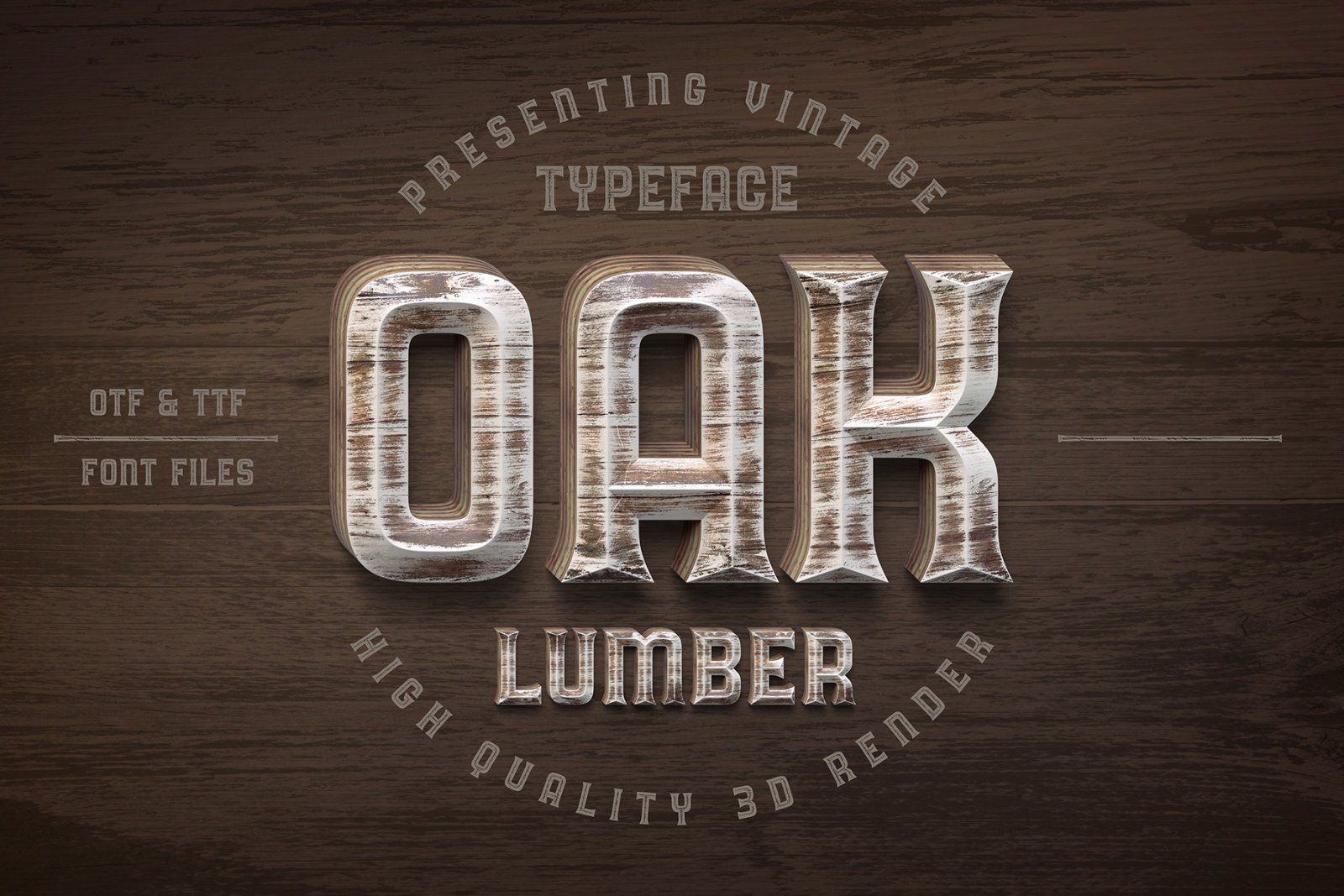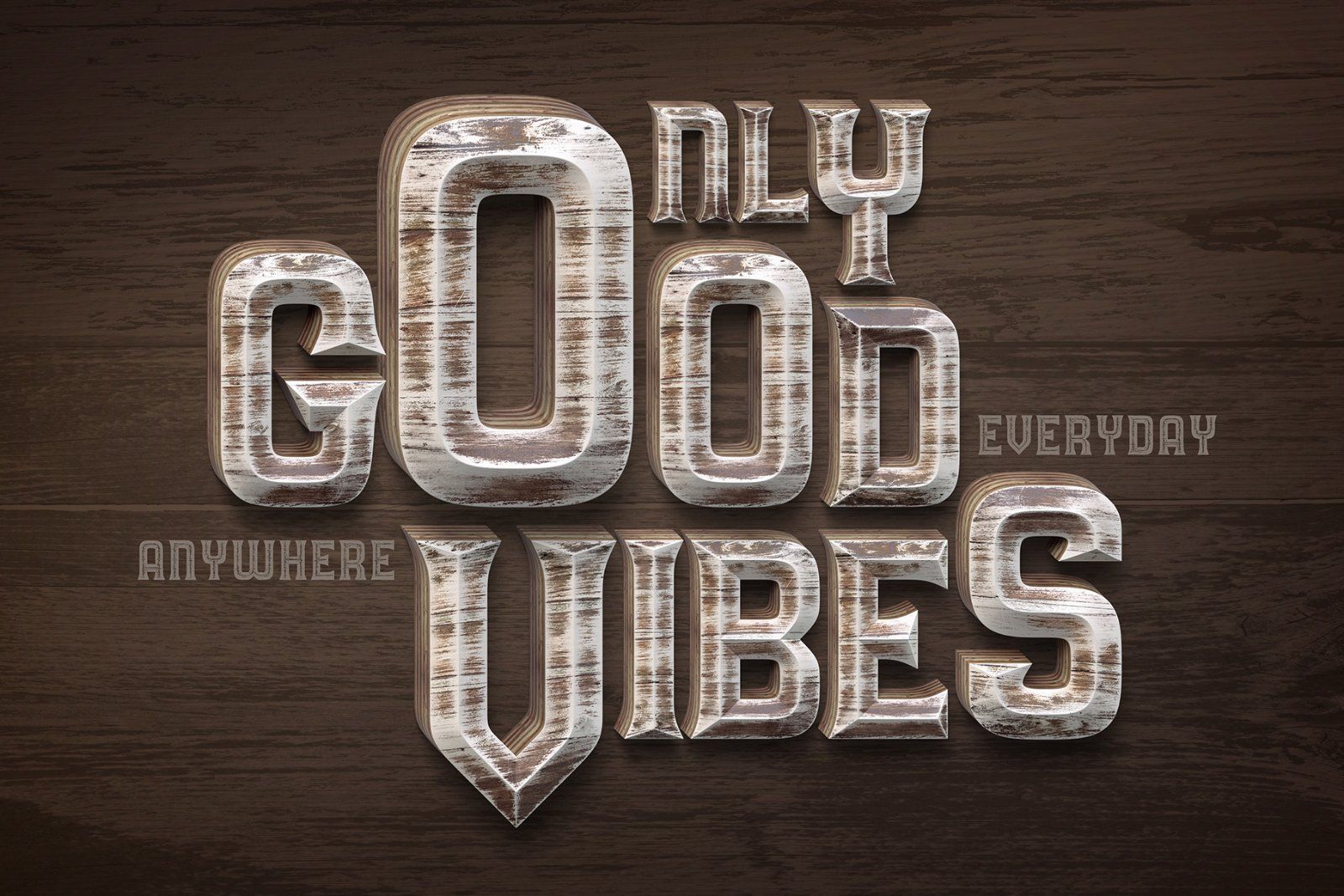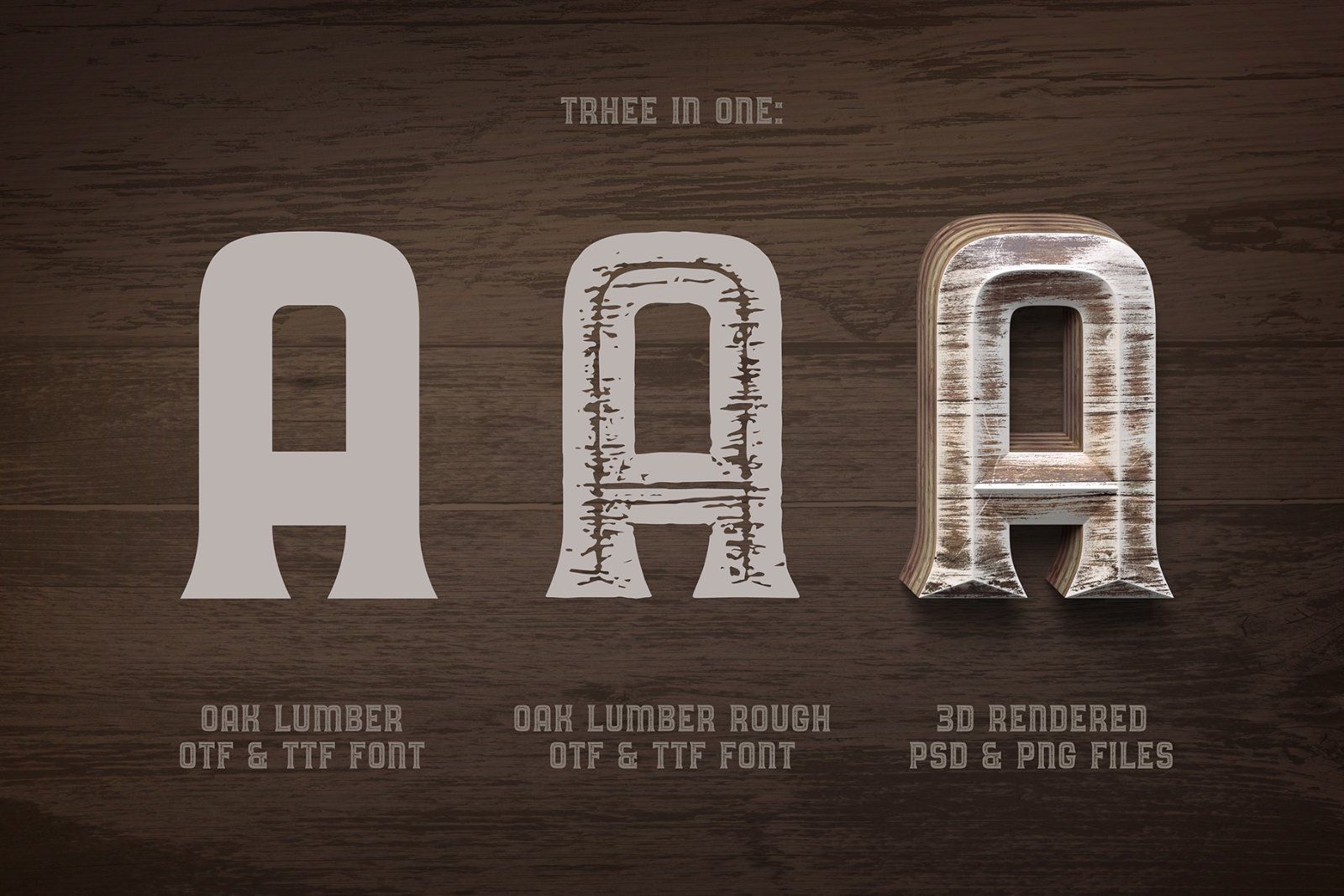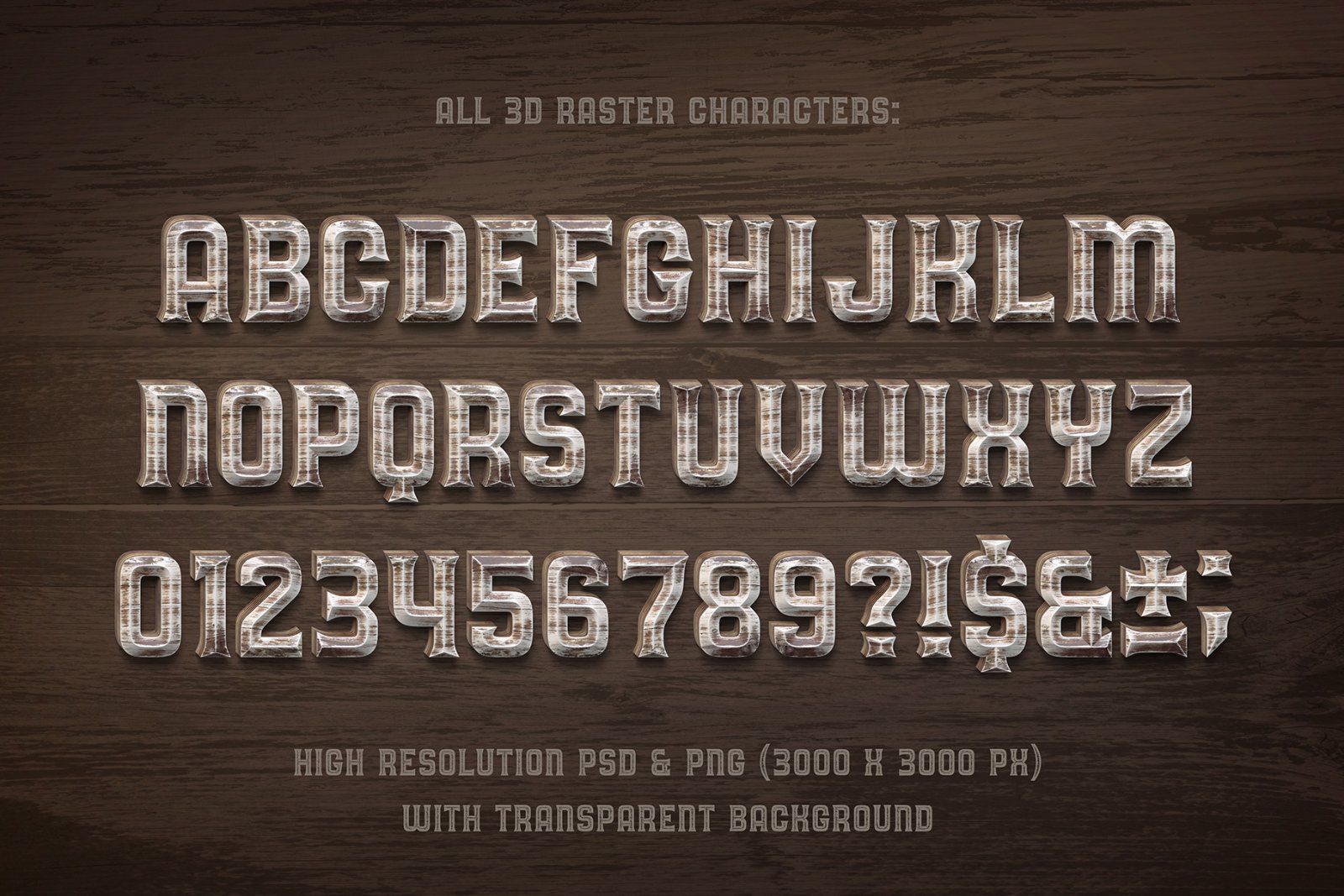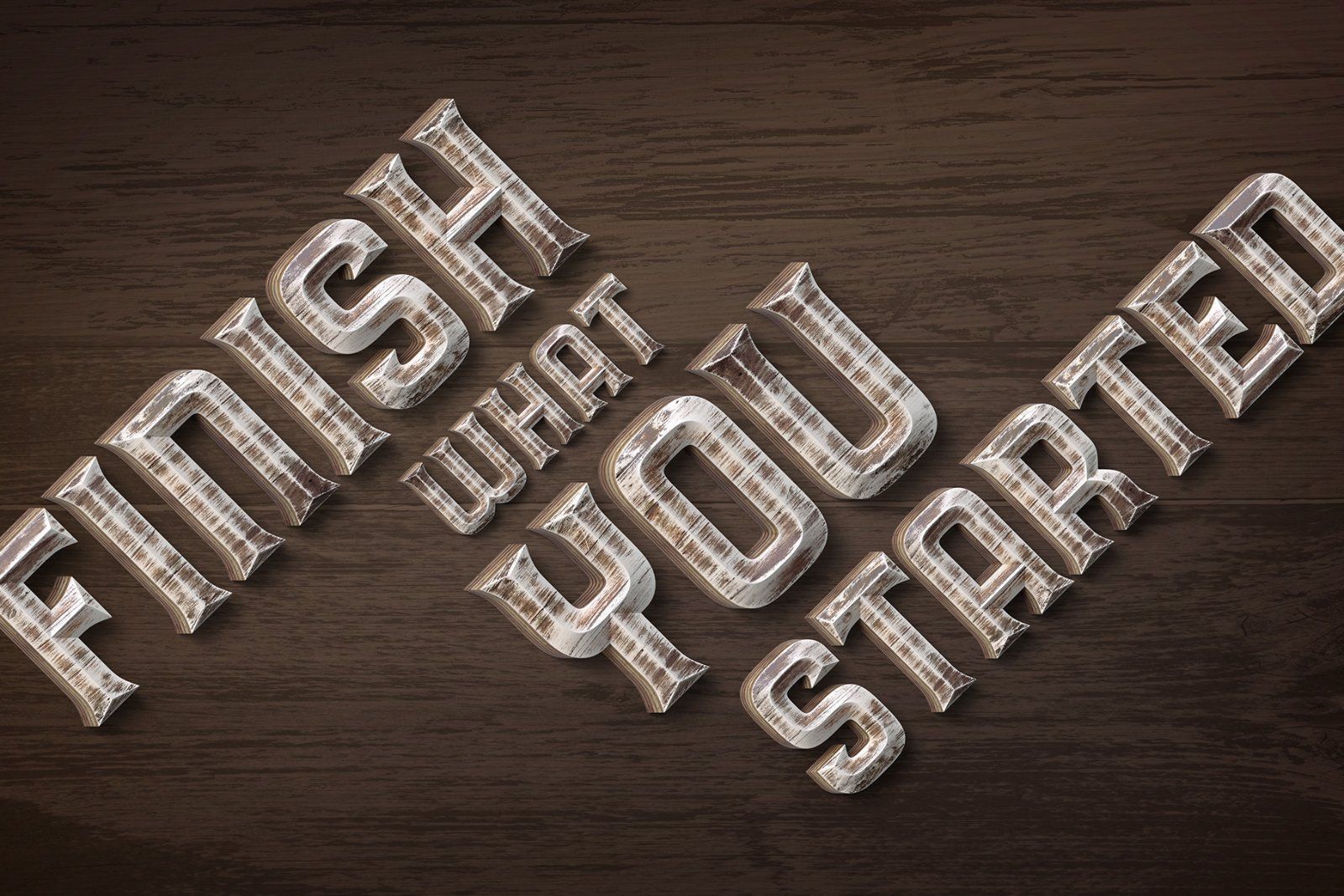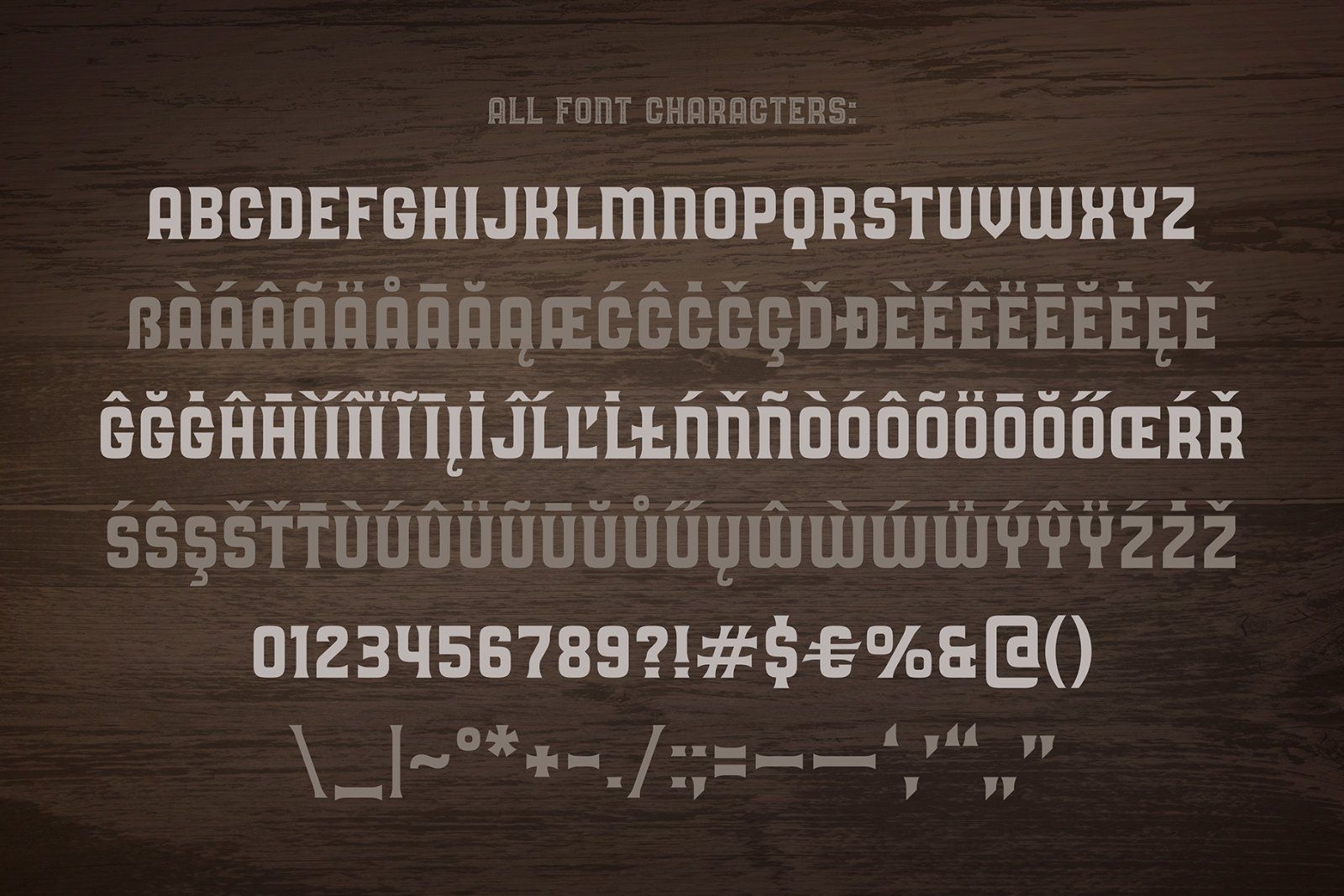
Hello! Presenting a font set Oak Lumber. It consists of a 3d rendered high resolution characters in PSD & PNG formats with transparent background. And two styles (clean & rough) of this font in usual OTF & TTF formats with multilingual support. Also a background texture and all characters in vector EPS are included.